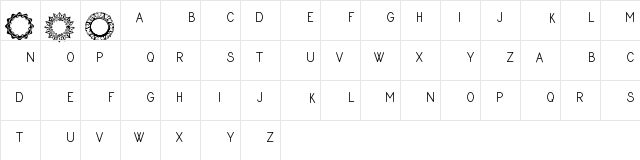
Monogram Framer Demo
Design Context for Monogram Framer Typeface
Monogram Framer brings the precise, column-aligned rhythm of monospaced typography to designs that value technical clarity and systematic order.